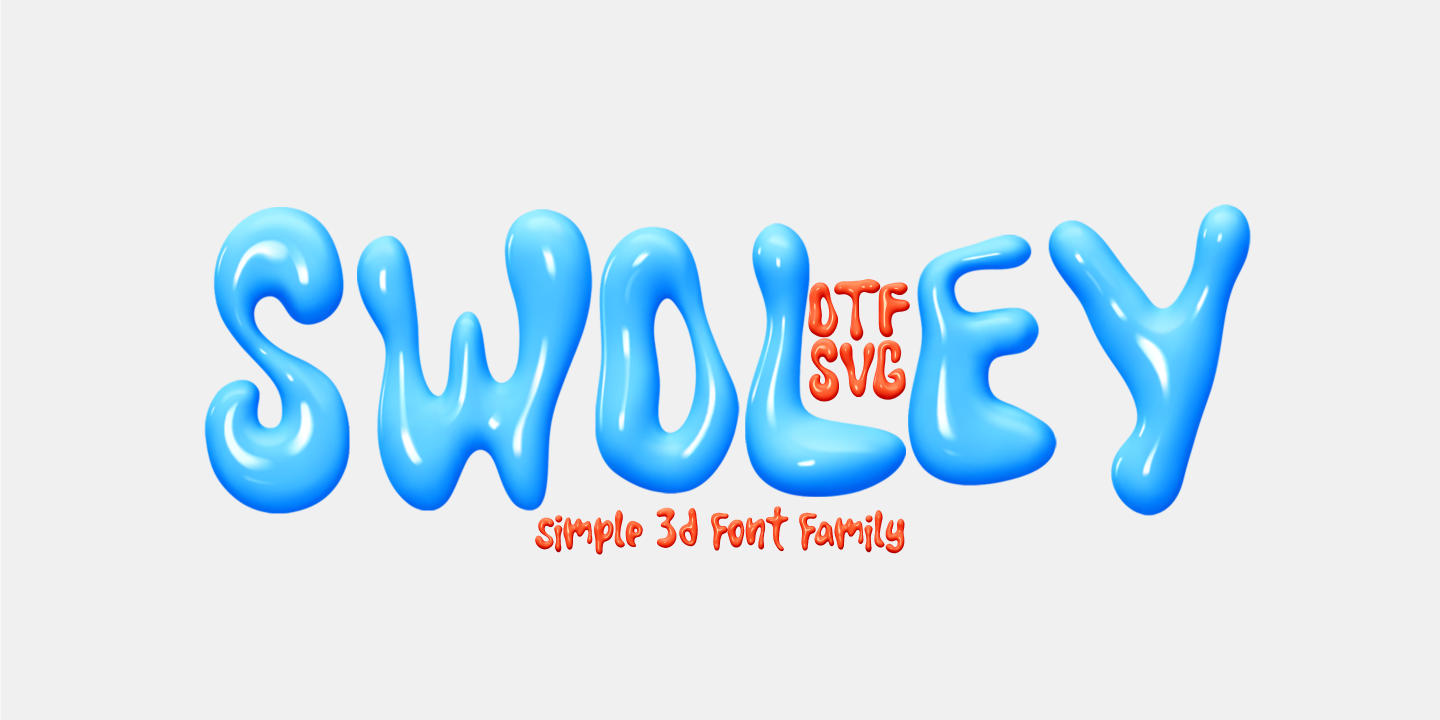
Discover the vibrant Swoley Font Free Download, a 3D color typeface designed by Lauritta Ivanova and published by Luxfont that creates a stunning liquid-like visual effect. This font is perfect for adding a modern, dynamic aesthetic to your designs. However, please note that you must purchase this font for commercial use. For testing purposes, you can download it for free and explore its unique style.
The Swoley Font is ideal for various applications, such as designing eye-catching logos, crafting bold headlines, creating expressive posters, or enhancing digital ads and branding materials. Its versatility and glossy plastic shades, paired with holographic effects, make it a top choice for projects that demand a futuristic, innovative look.
Why is the Swoley Font Free Download so exciting? Its fluid, 3D design with raster color glyphs offers a realistic yet modern appeal, transforming text into picturesque liquid drops. This font’s ability to pair with the Volufont family and its support for OpenType-aware applications ensure your designs stand out with captivating sophistication.
The Swoley Font family includes 10 styles: Regular, Black, Blue, Holographic, Pink, Purple, Red, White, Yellow, and a DEMO version, providing flexibility for diverse design needs. These variations allow you to experiment with vibrant color options, perfect for both print and digital media.